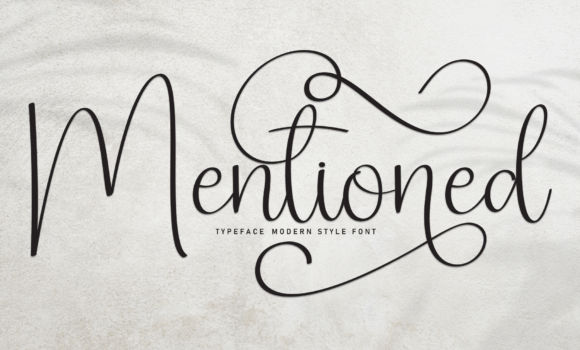
Mentioned Font – Free Download Introduction to Mentioned Font Mentioned is a lovely and timeless handwritten font. 📸 Preview Gallery 6 images 📌 Product Name Mentioned Font 👤 Author andikastudio 📂 Category Explore ⬇️ Download Mentioned Font FREE Free Download